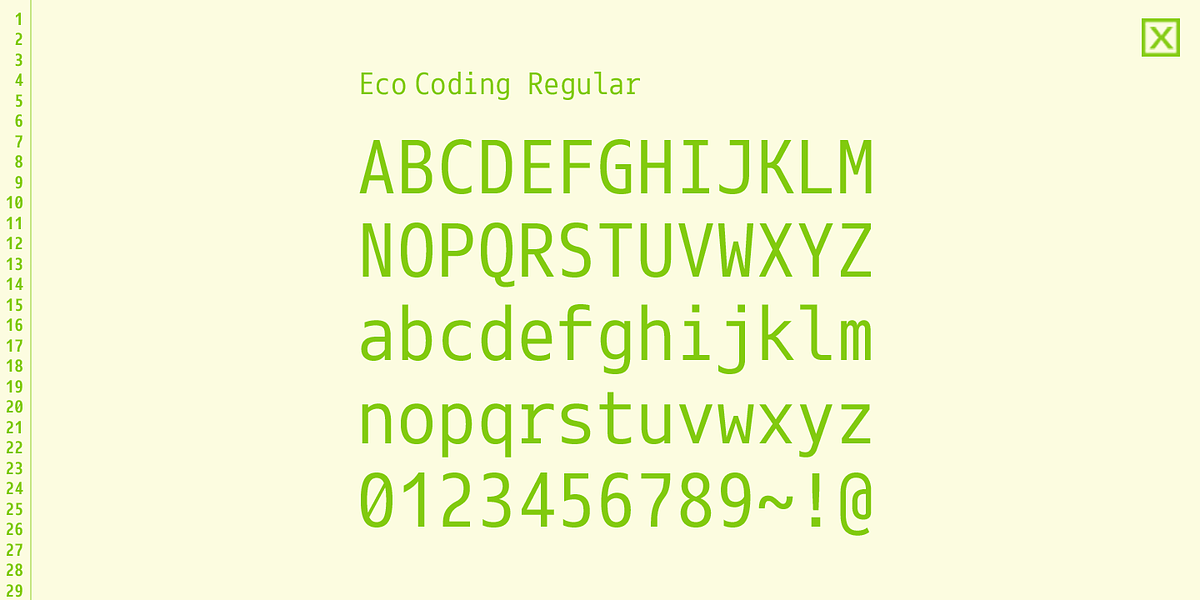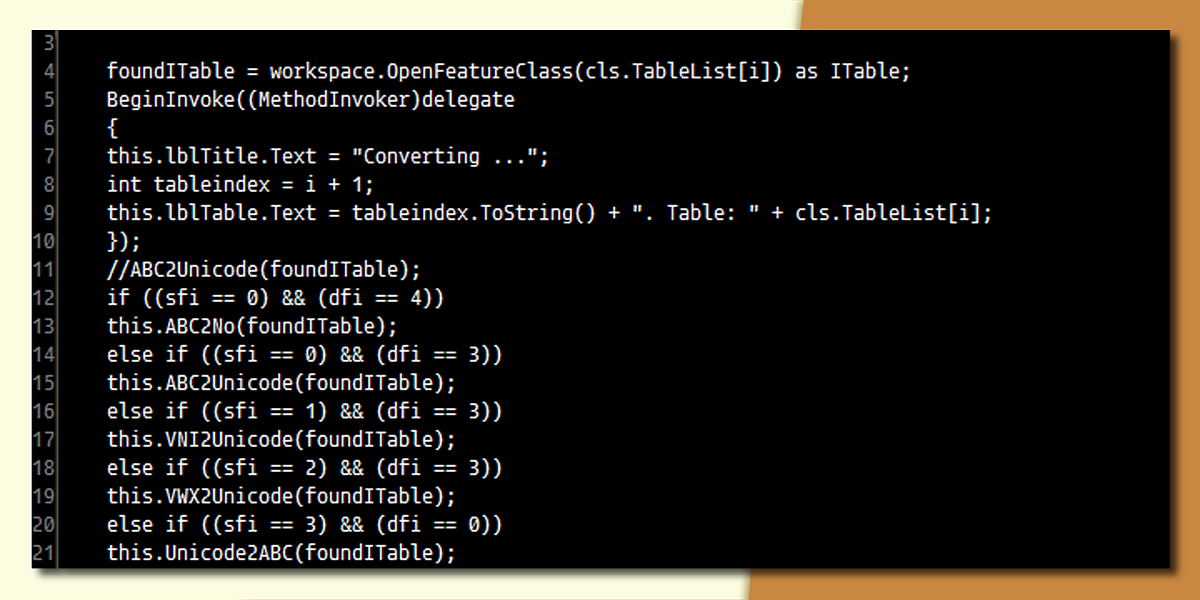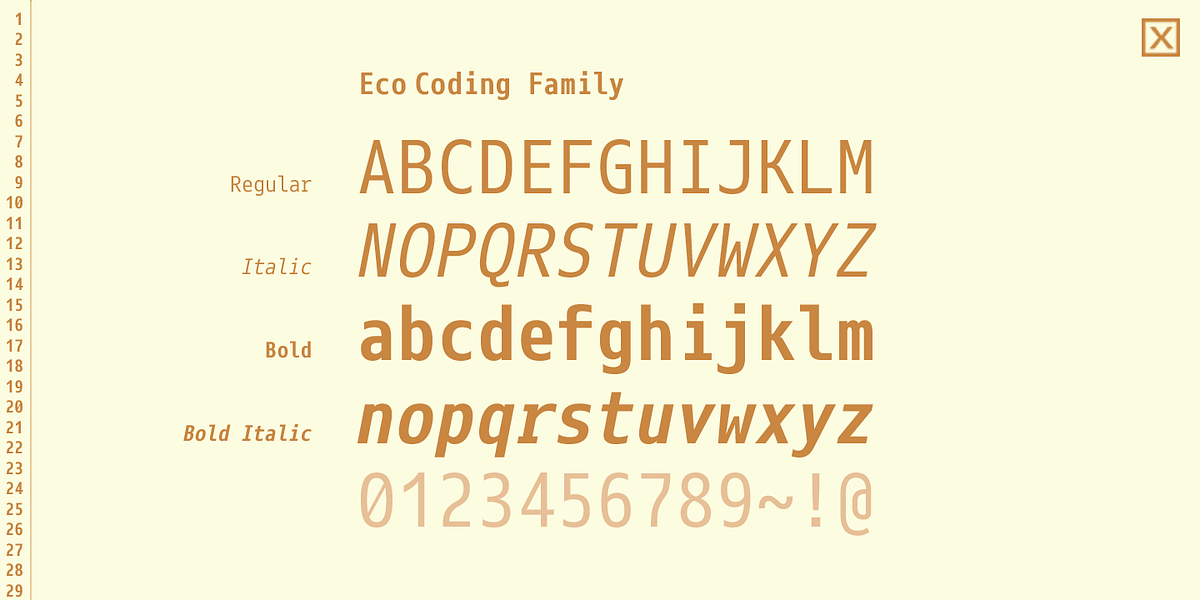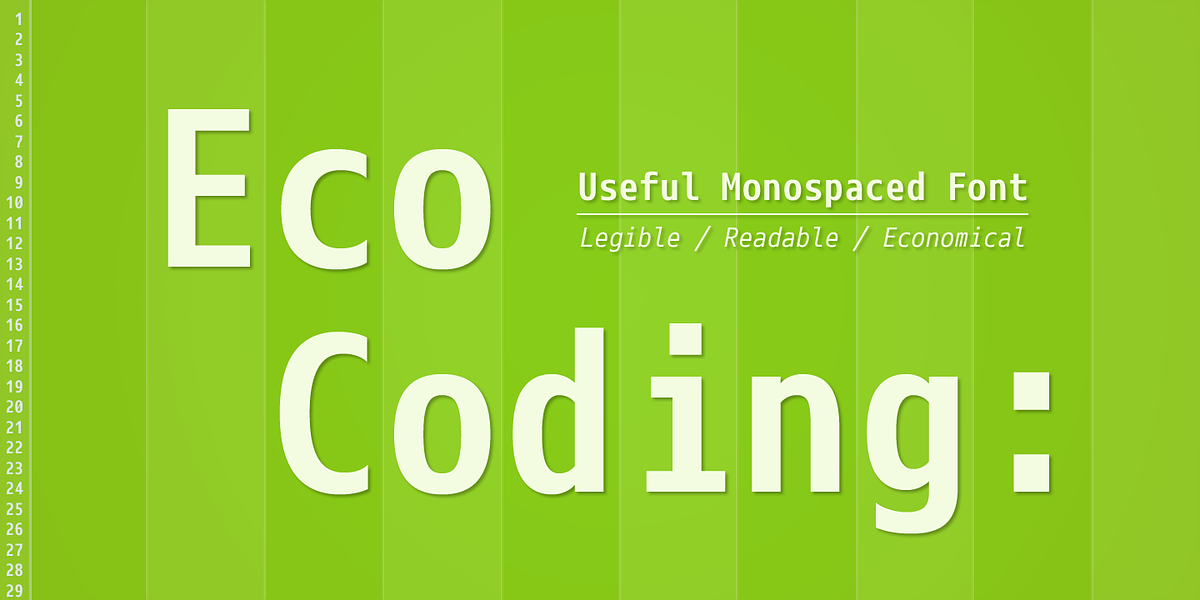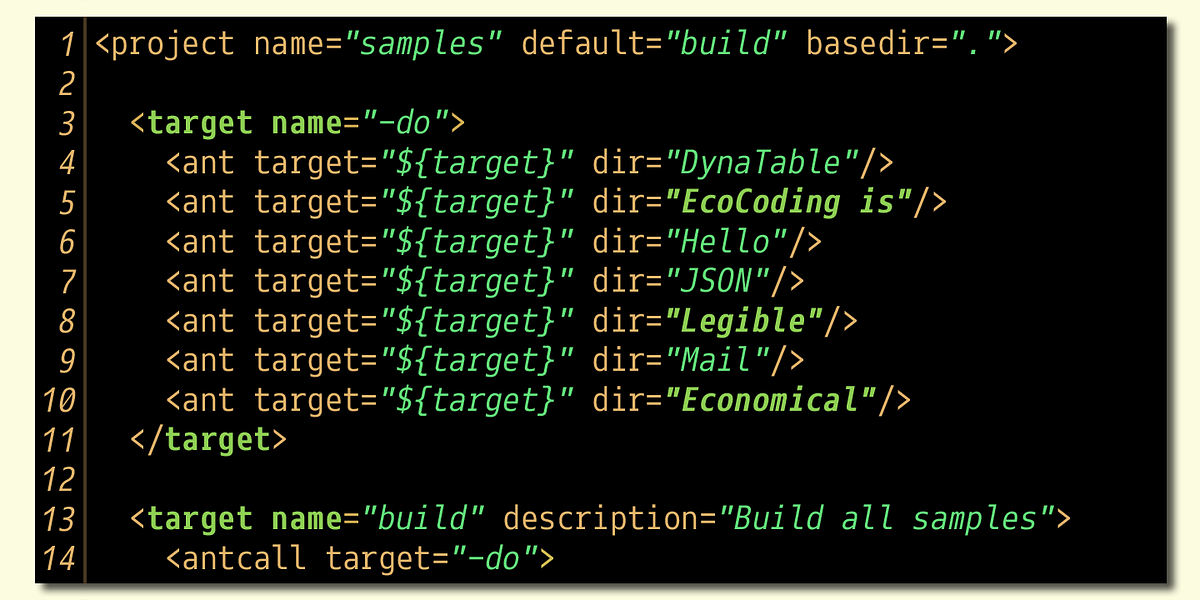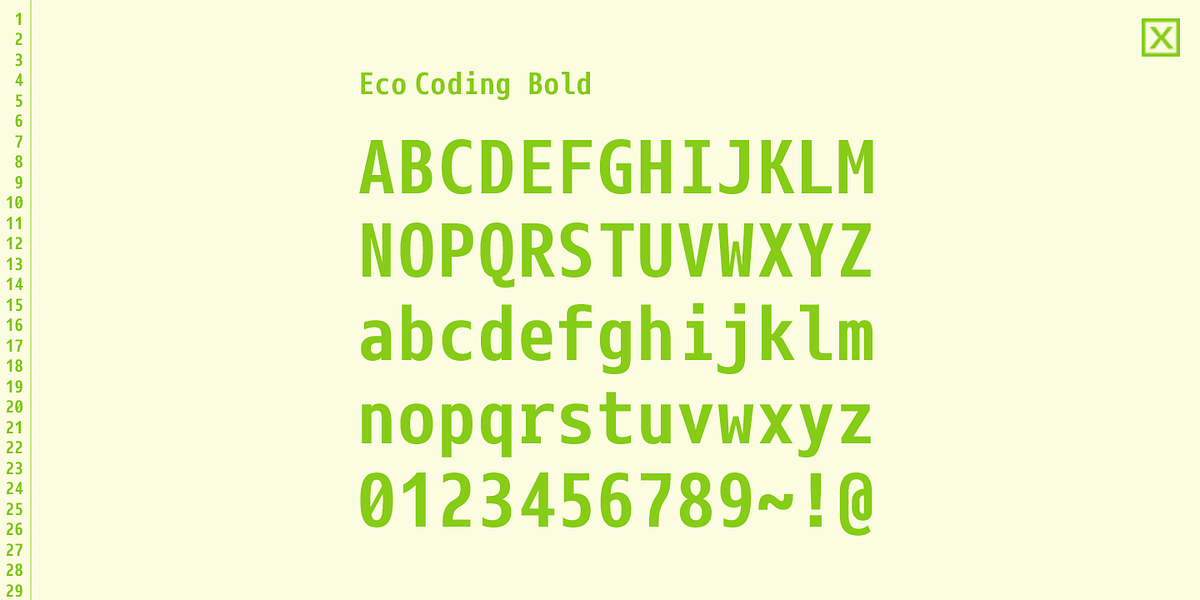
Eco Coding
Eco Coding is a neo-grotesque sans serif font specifically designed for programming environments. Its neutral aesthetic and open shapes are intended to minimize eye strain during extended coding sessions. The distinctive letterforms enhance legibility and readability on screen.